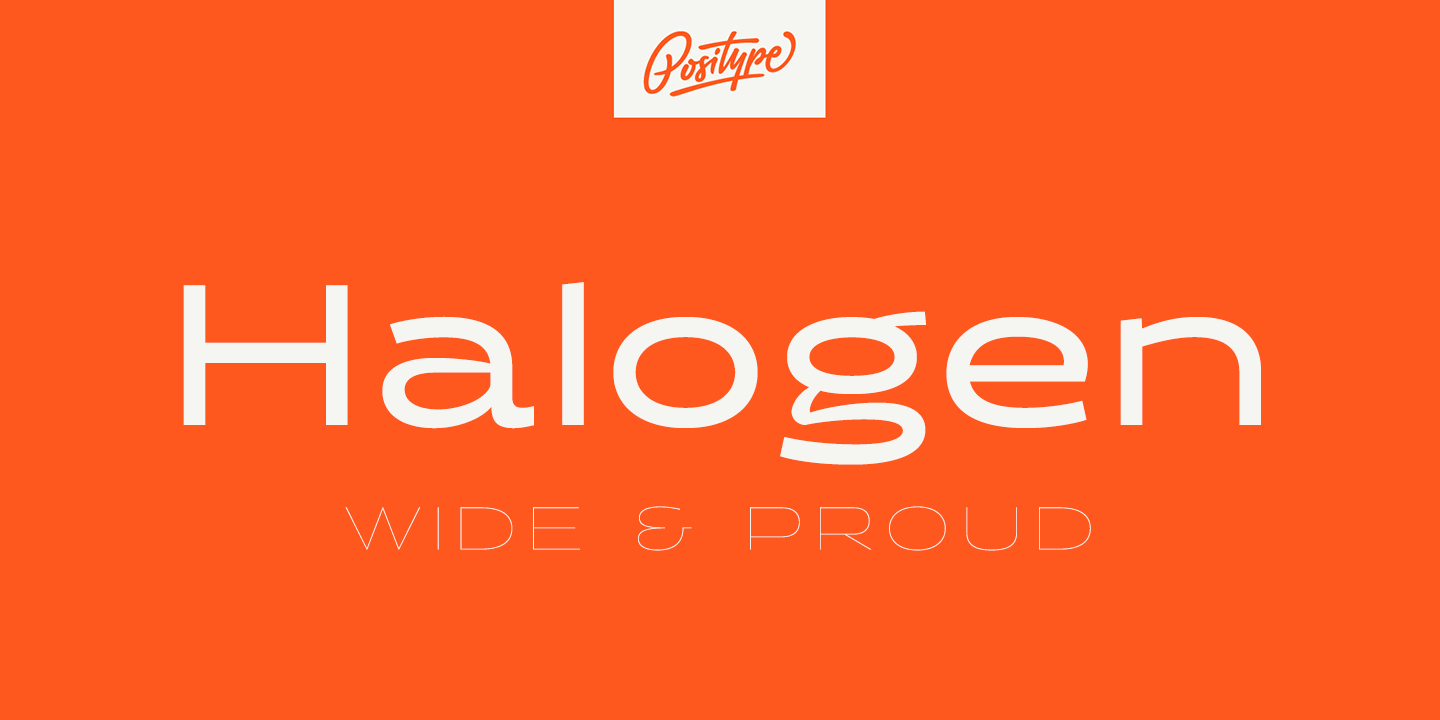
Halogen Font is perfect for modern branding, tech company logos, futuristic designs, scientific publications, digital interfaces, contemporary signage, electronic music graphics, and innovative advertising campaigns.
What makes Halogen Font exciting is its cutting-edge aesthetic that combines sleek geometric forms with high-tech sophistication, creating a distinctive typeface that embodies innovation and forward-thinking design. This striking sans-serif features clean lines, precise construction, and subtle technological details that evoke the precision of modern science and engineering, making it ideal for brands seeking to communicate technological advancement.
The Halogen Font family includes Light, Regular, Medium, Bold, and Black weights, each maintaining the characteristic sleek appearance and technological edge that define this distinctive typeface's futuristic personality and professional appeal.
Halogen Font Free Download provides access to a premium typeface that represents the intersection of design and technology. This versatile font captures the essence of innovation while maintaining exceptional functionality across all applications, making it perfect for technology startups, research institutions, and progressive brands targeting tech-savvy audiences. The font's clean construction and precise details ensure optimal readability in digital environments while its distinctive character creates memorable brand recognition. Whether designing software interfaces, scientific presentations, or cutting-edge marketing materials, this font delivers the perfect balance of functionality and futuristic appeal. Its technological aesthetic and contemporary edge make it essential for projects celebrating innovation, precision, and scientific advancement, ensuring designs resonate with audiences embracing technological progress and forward-thinking solutions.